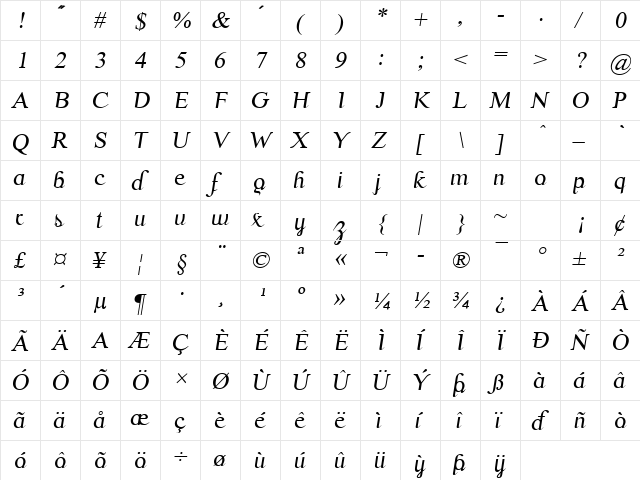
Scrypticali Normal
Design Context for Scrypticali Typeface
Scrypticali offers clean, dependable letterforms without strong stylistic allegiance, making it a practical choice for designers who need flexibility.
Pro Tip: Pair Scrypticali with a font of contrasting weight or personality to build a more expressive typographic hierarchy.